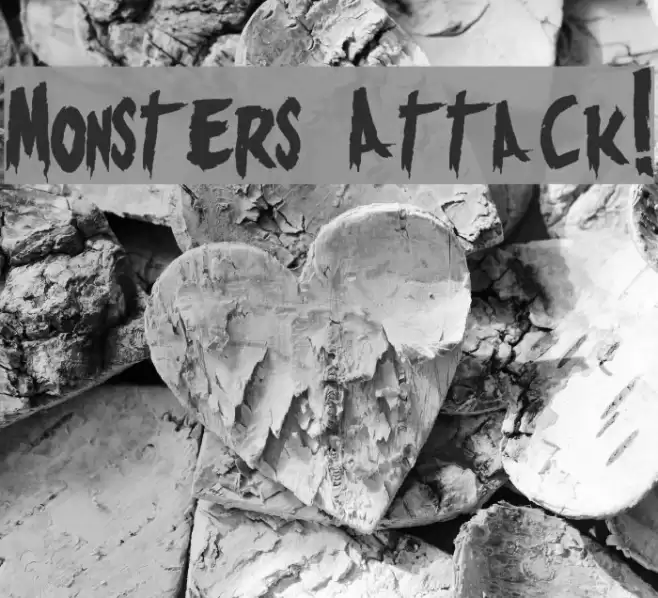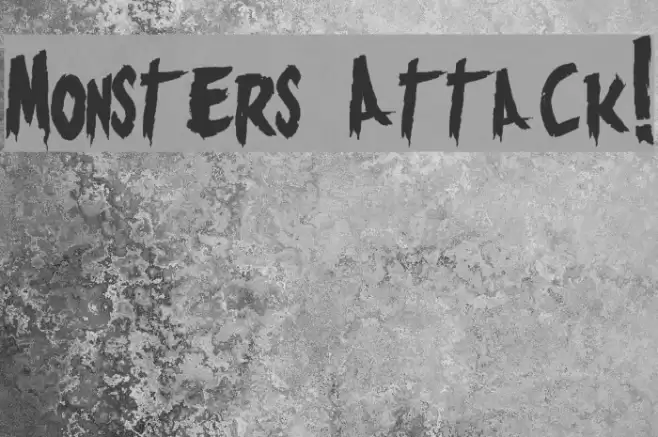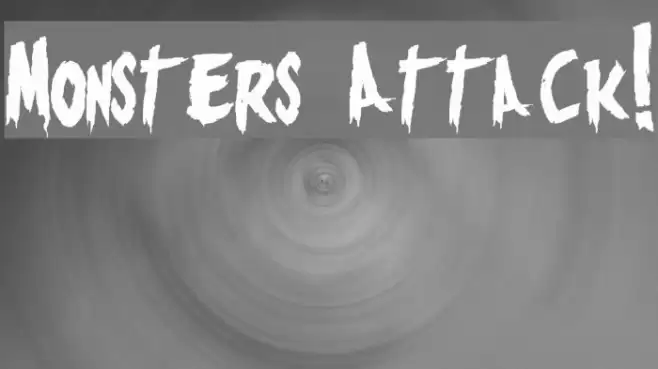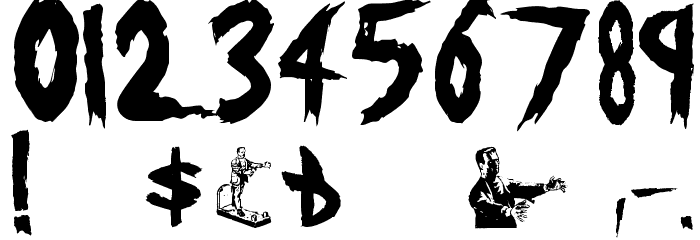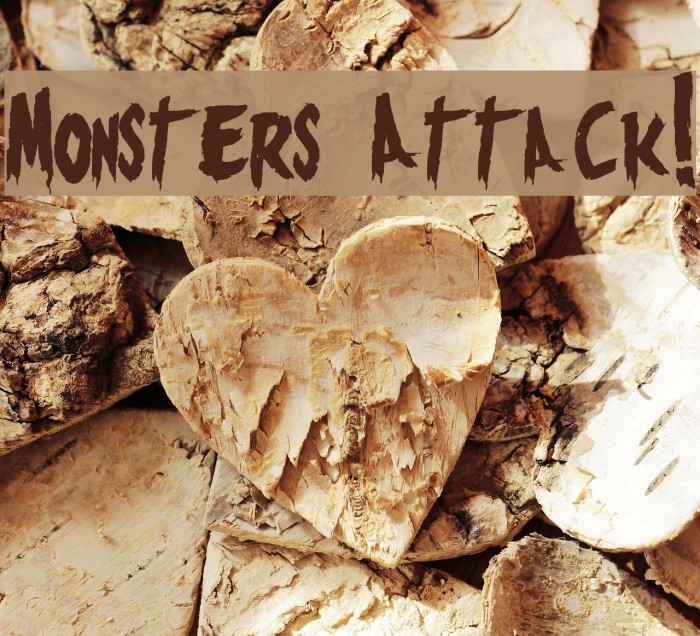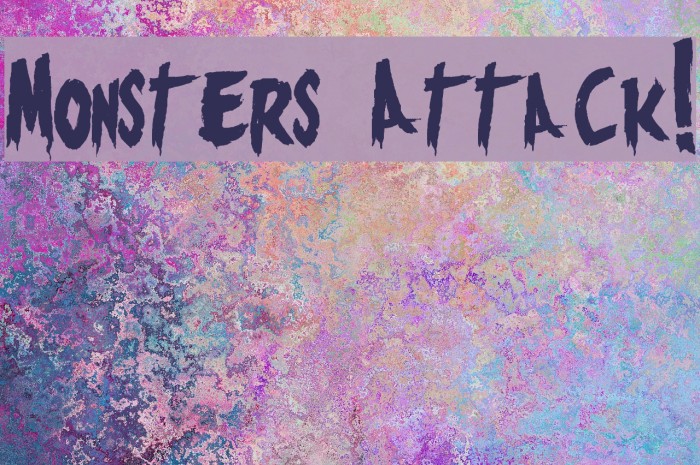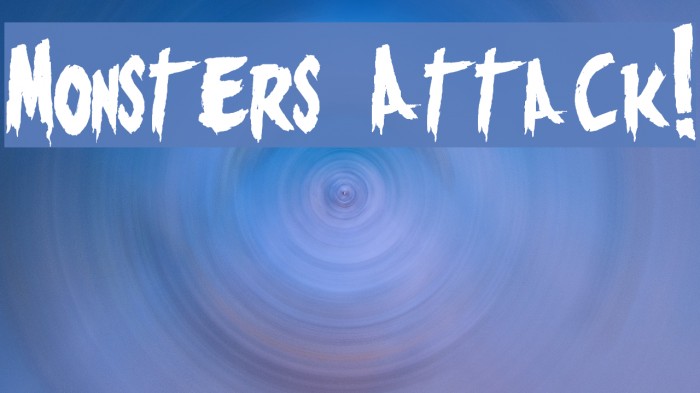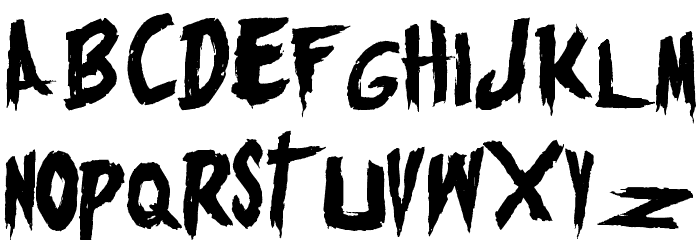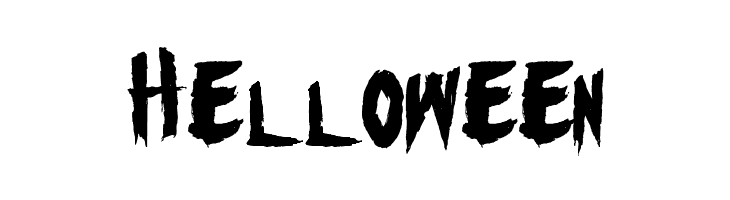
Monsters Attack! Font
Monsters Attack! Description
This font exudes a horror-inspired, chaotic energy with its jagged, irregular strokes and distressed appearance. The characters appear as if they have been clawed or torn, creating a sense of urgency and fear. The uppercase and lowercase letters maintain a consistent style, with sharp angles and uneven edges that contribute to its unsettling aesthetic. The numbers and special characters follow the same theme, enhancing the overall eerie vibe. This font is perfect for projects that require a dramatic and intense visual impact.
A horror-themed font with jagged, distressed characters for a chaotic look from Halloween fonts.
- Proposed Projects: Ideal for horror movie posters, Halloween event flyers, spooky-themed merchandise, and video game titles.
- Use Case: Headlines, Posters, Logos